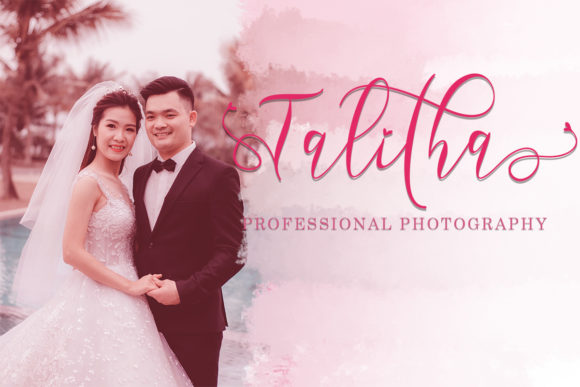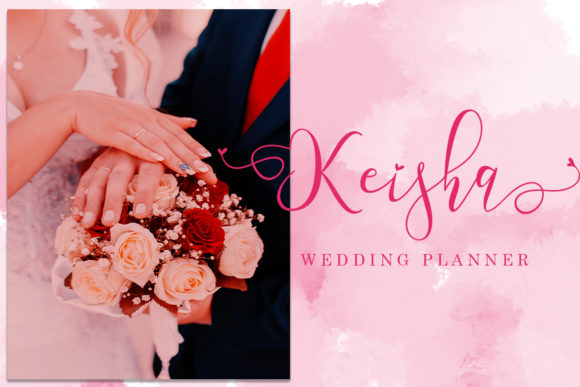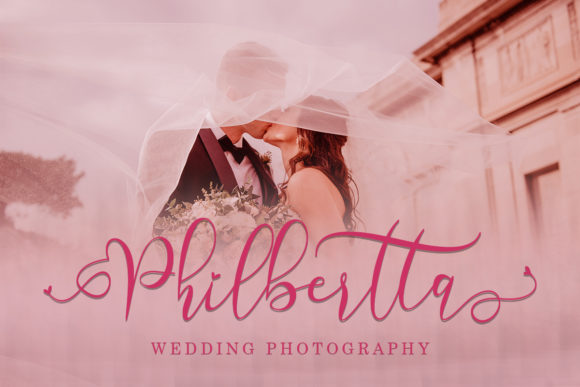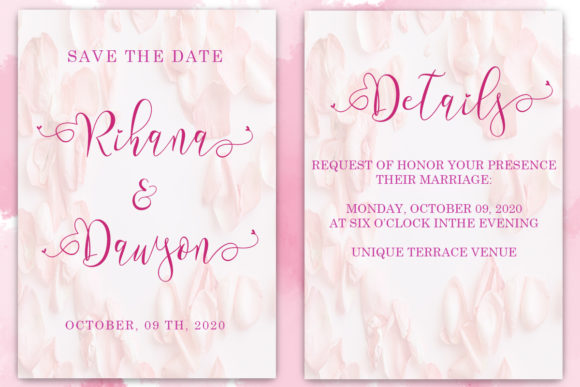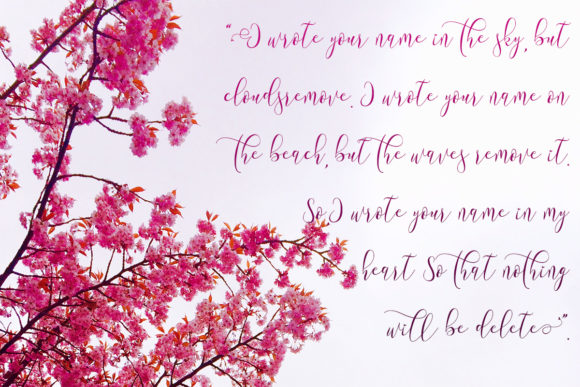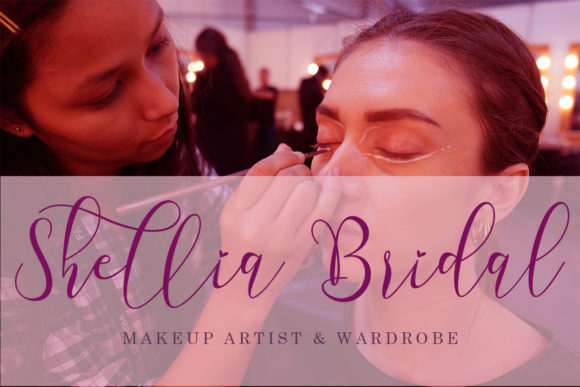
Introduction to Meillea Font
Have you ever found yourself staring at a blank page, waiting for the perfect design to come alive? For many designers, this is a familiar creative moment – a chance to breathe life into an idea and bring it to the world. And what makes the difference between a mediocre design and a truly stunning one? The right font, of course! That’s where the Meillea Font comes in – a delicate, elegant, and flowing handwritten font that’s about to become your new design BFF.
Whether you’re working on a creative project or just need a reliable design resource, the Meillea Font is a high-quality addition to your toolkit. With its beautiful and well-balanced characters, this font is perfect for designers who want to add a touch of sophistication to their work. And the best part? You can download it for free, complete with a transparent background that makes it easy to use in any design scenario.
Key Features of Meillea Font
- High-quality design: Meillea Font is designed to provide a professional and elegant look for your creative projects, making it a valuable design resource.
- Transparent background: Meillea Font comes with a transparent background, giving you the flexibility to use it with any design or image.
- High-resolution design: Meillea Font is designed with high resolution in mind, making it suitable for use in both digital and print media.
- Unique characteristics: Meillea Font features a unique blend of modern and elegant design elements, setting it apart from other fonts in its category.
- Perfect for creative projects: Whether you’re working on a logo, brochure, or website, Meillea Font is an excellent choice for adding a touch of sophistication and creativity to your design.
Honest Review: Meillea Font
I recently had the opportunity to work with the Meillea Font, and I must say it’s been a pleasant experience. As a designer, I’m always on the lookout for high-quality design resources that can elevate my creative projects.
However, I did encounter some limitations when using the Meillea Font. The font’s character set is somewhat limited, which can be a drawback for designers who need a wide range of characters for their projects.
Overall, I’m impressed with the Meillea Font’s performance. While it may not be perfect, it’s a great option for designers who need a high-quality, free design resource for their creative projects. With a little creativity, you can work around its limitations and achieve great results.
PowerPoint and Word are popular presentation and document creation software that can use the Meillea Font. To use Meillea Font in PowerPoint/Word, follow these steps: install the font file on your computer, select the font from your font library, and customize it as needed.
Tips for Getting the Most Out of Meillea Font
To get the most out of Meillea Font, use it in combination with other design elements to create a visually appealing design. Experiment with different font sizes, colors, and styles to achieve the desired effect.
Common Use Cases for Meillea Font
Meillea Font is commonly used in graphic design, branding, and digital marketing projects. It’s also a popular choice for creating social media graphics, posters, and flyers.